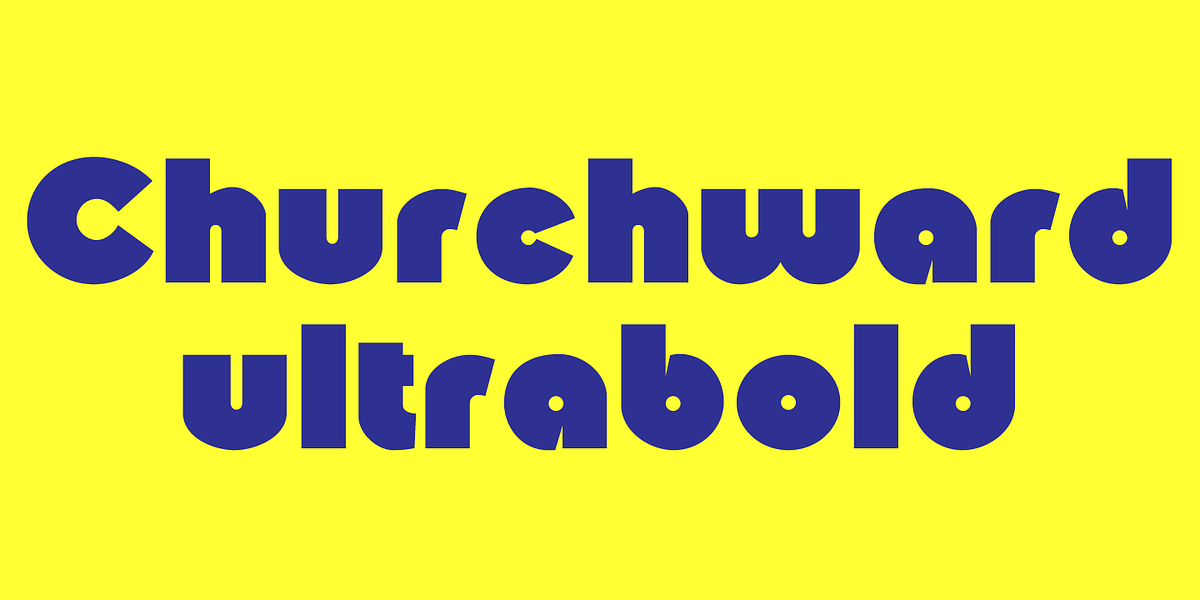
Churchward Ultra Bold
Churchward Ultra Bold is a strong and impactful typeface designed for display purposes. Its geometric shapes and bold weight make it ideal for headlines, posters, and branding materials where a modern and attention-grabbing aesthetic is desired.